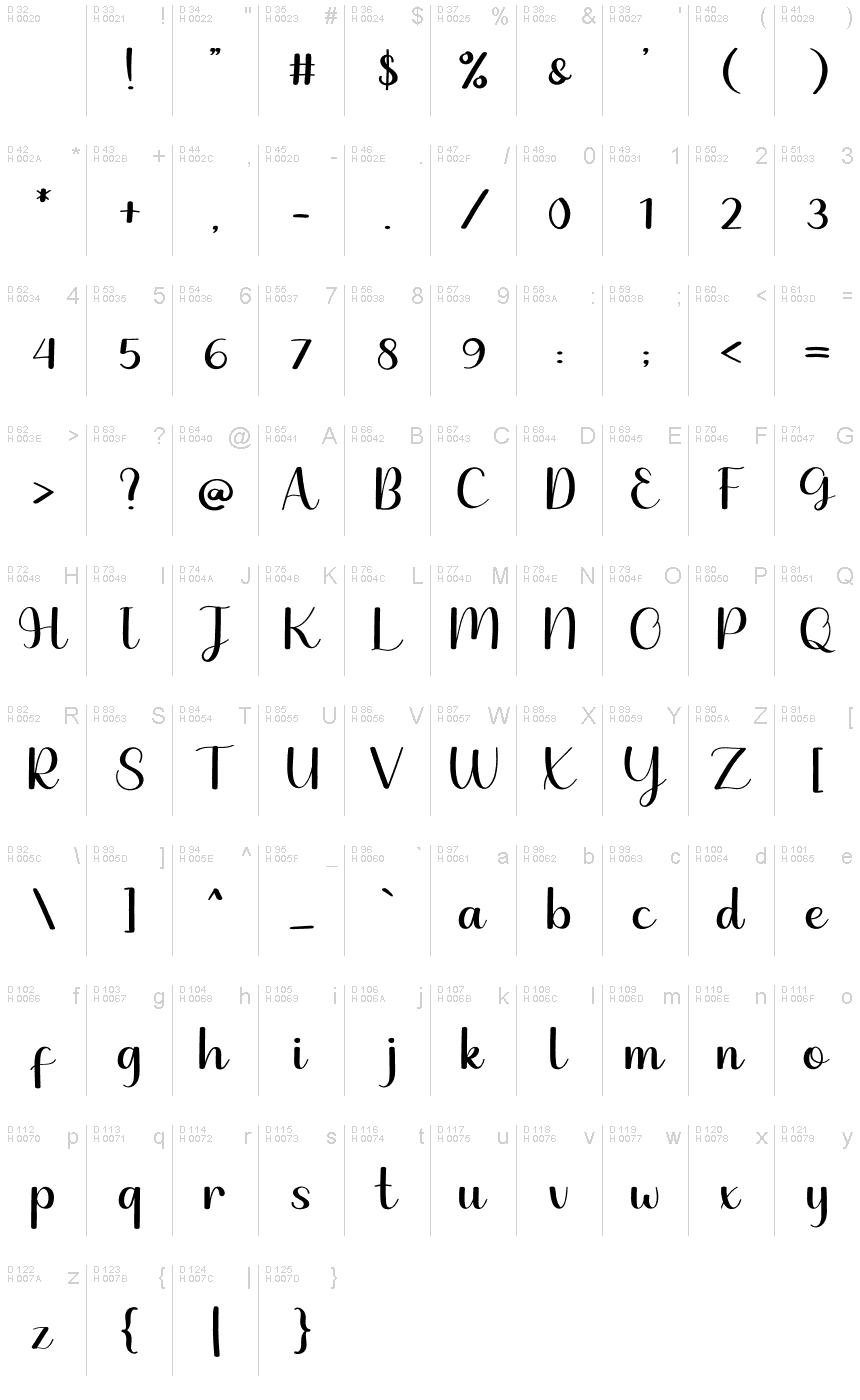
Love Honey
Love Honey, the exquisite calligraphy font designed by Erik Studio, is a perfect blend of elegance and playfulness. Its semi-light weight adds an air of delicacy to any project it is used in. This romantic font can be used for wedding invitations, greeting cards, or even branding materials for a high-end cosmetics line. Its fluid strokes and flourishes make it ideal for adding a touch of sophistication to any design. Love Honey's versatility also makes it suitable for use in social media graphics or blog titles where its unique charm can help attract attention and leave a lasting impression on your audience.